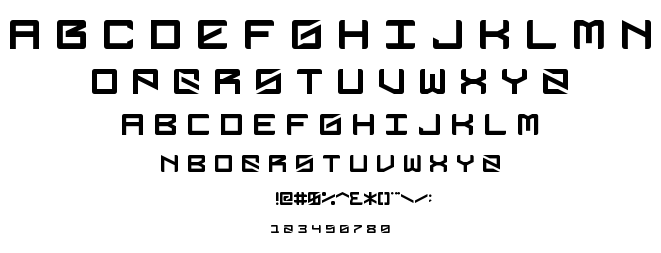
DubbingStar
DubbingStar Font
Another dubstep-inspired font. Techno, square-based. There are some subtle differences in some of the glyphs between capital and lower case letters (see preview image).